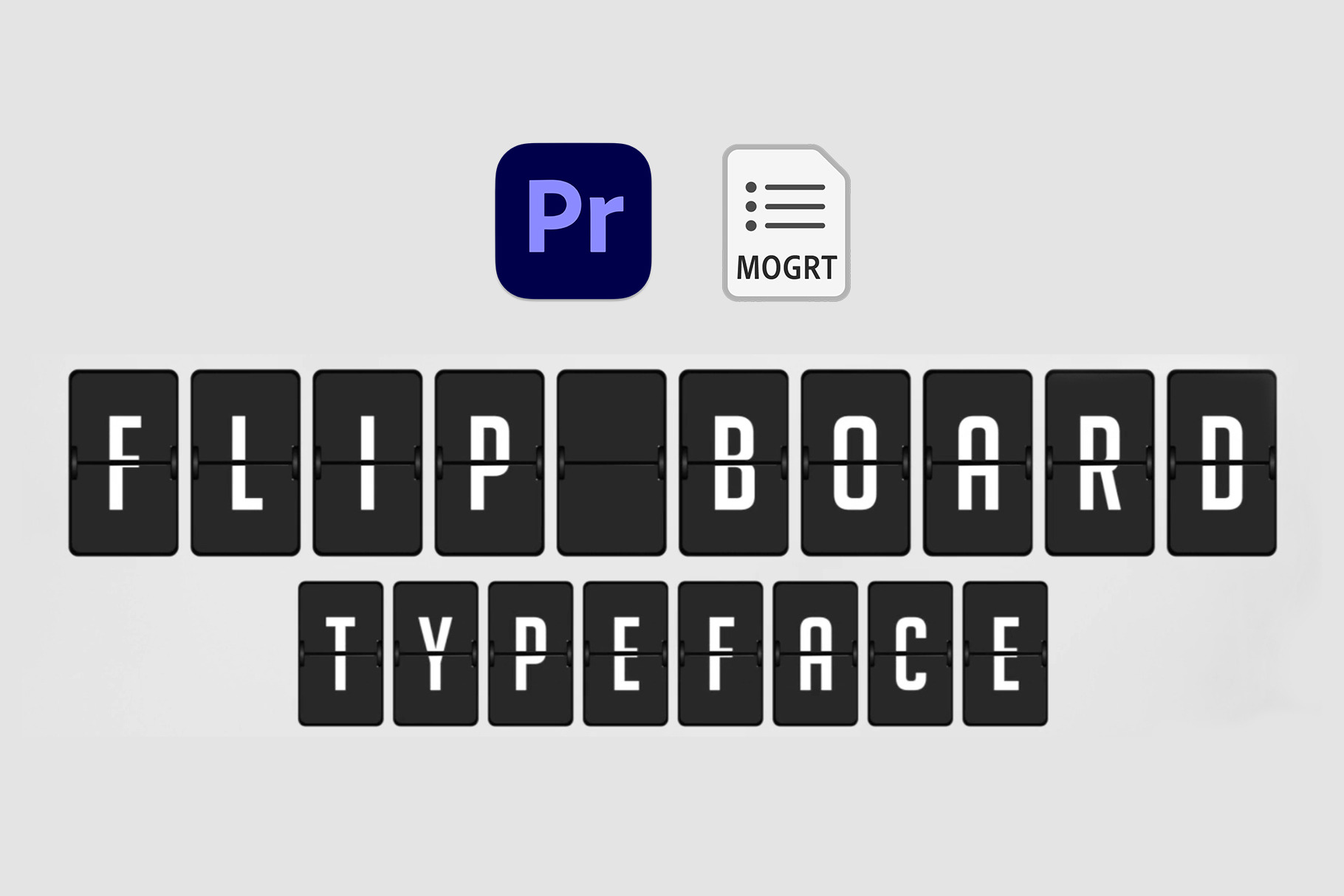
Flip Board - Animated Typeface
Flip Board – Animated Typeface for Premiere Pro. This .mogrt is in full HD resolution, and it is a fully customizable title template. It can be used in several video projects like departure boards, travel videos, vacations, invitations, greeting cards, Vlogs, romantic openers, intros, and many more.